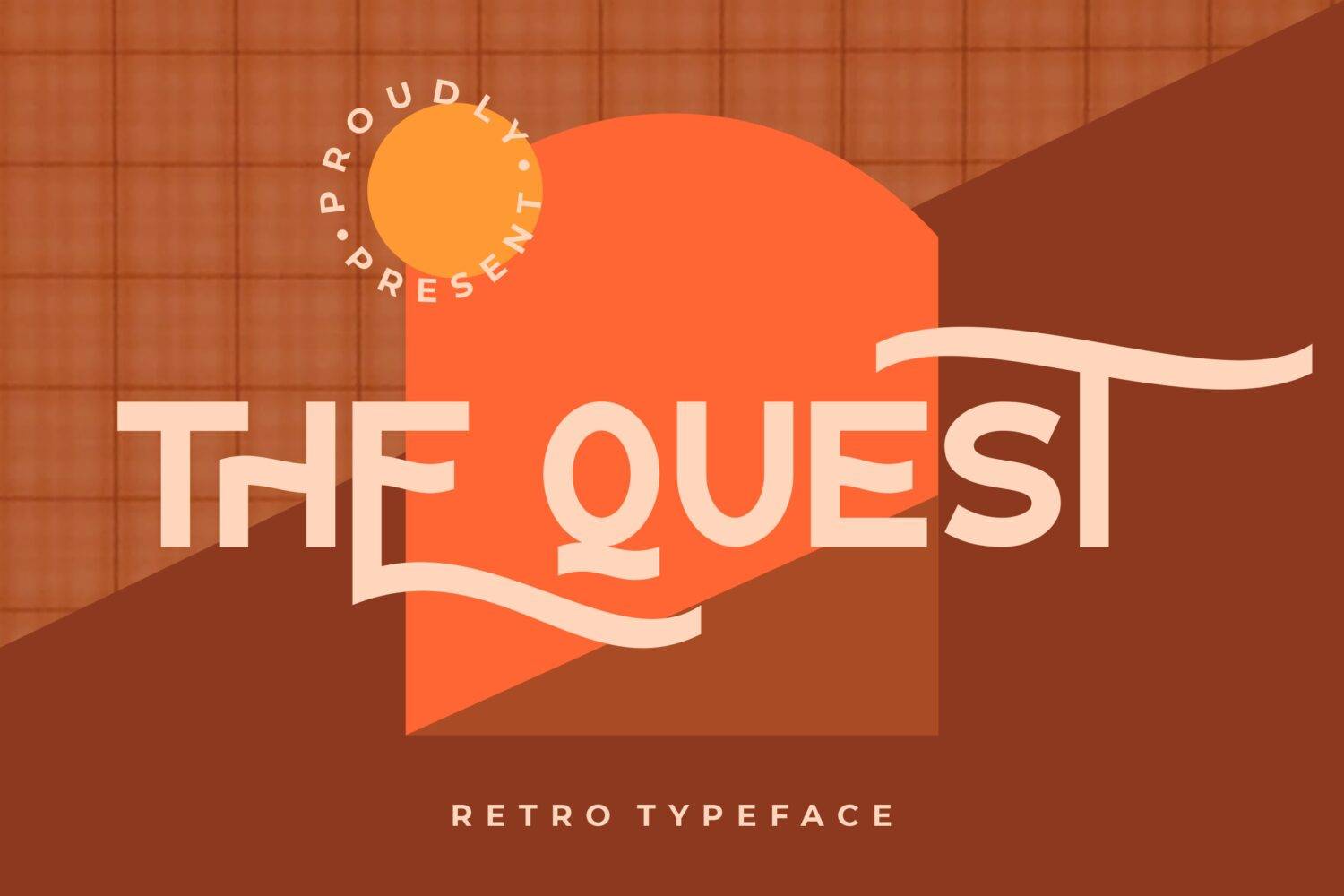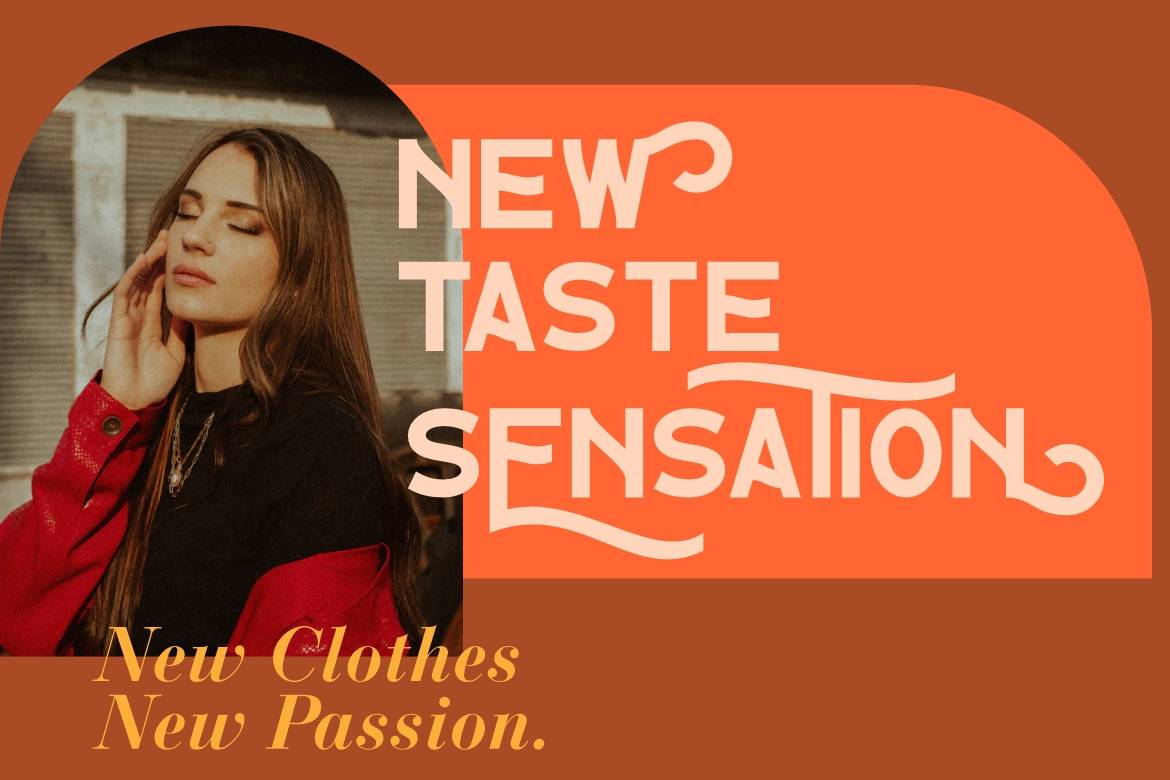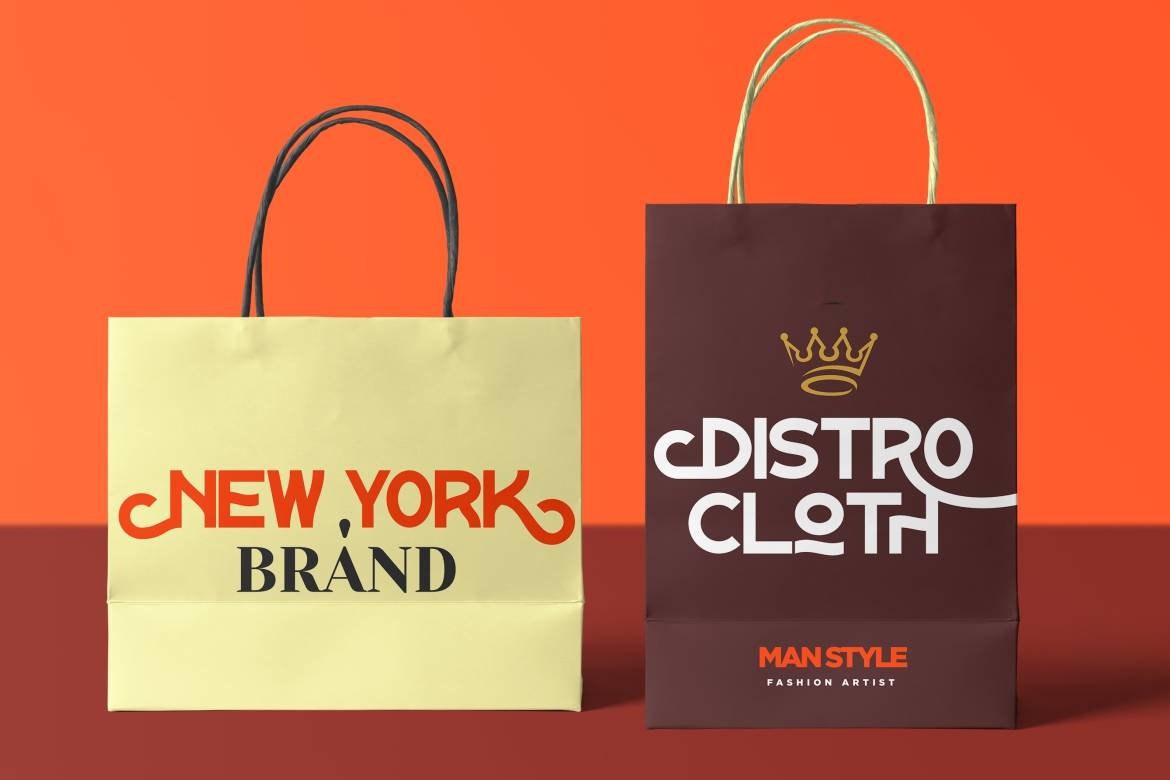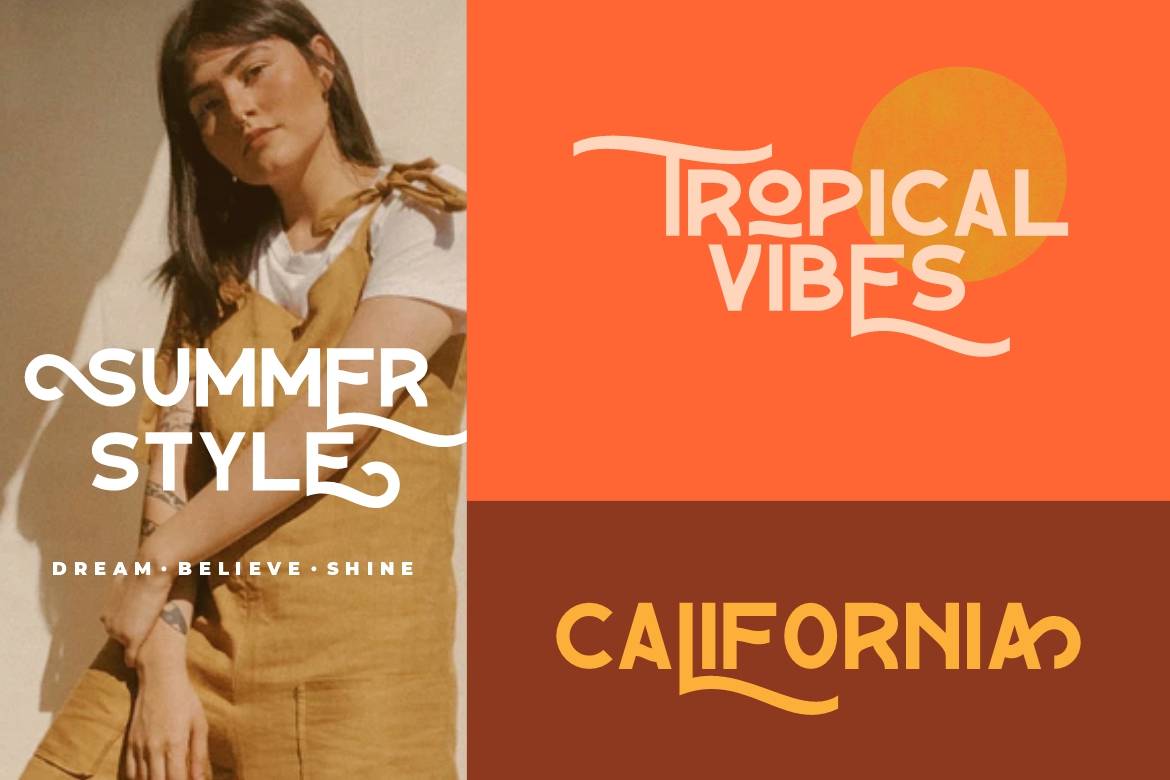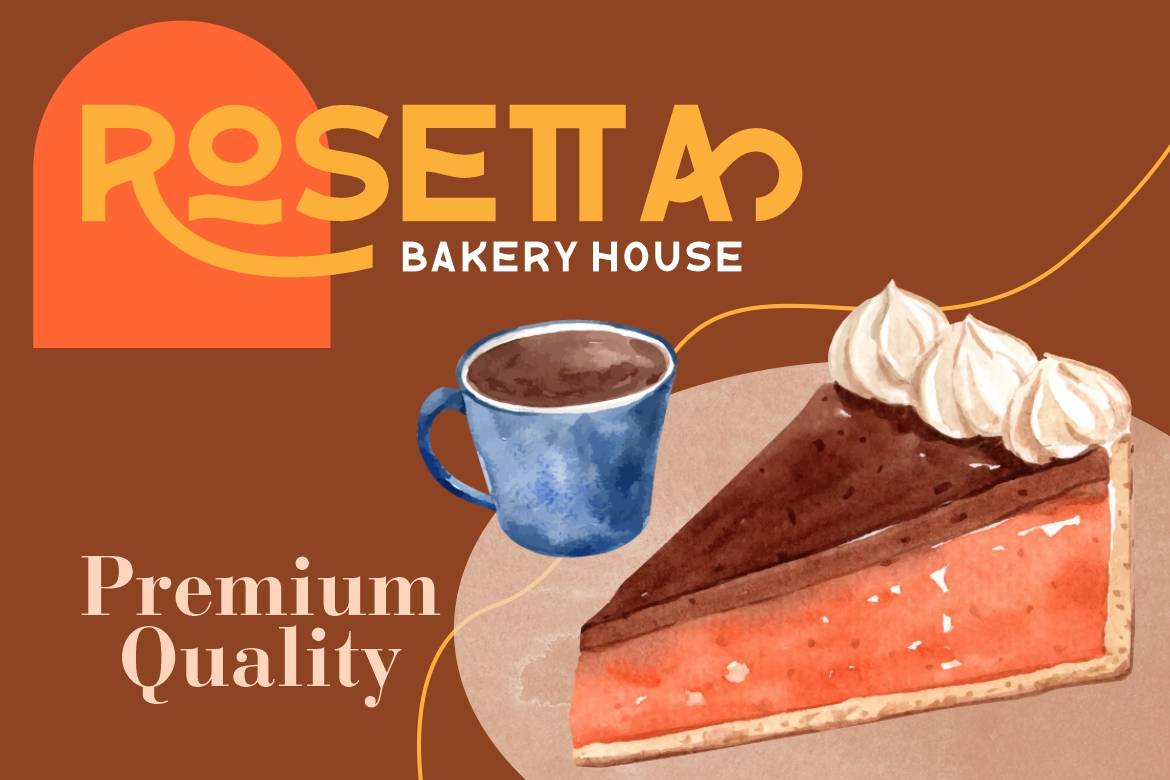
The Quest is a bold, geometric sans serif font with a playful and slightly quirky character, featuring distinct angular cuts and subtle irregularities that add personality and charm. Its strong weight and tight spacing give it a compact, impactful presence, making it ideal for memorable headlines, logos, and eye-catching branding that aim to feel modern yet approachable. This font works especially well where a bold statement with a friendly, adventurous vibe is needed.
The Quest Font
About The Quest Font